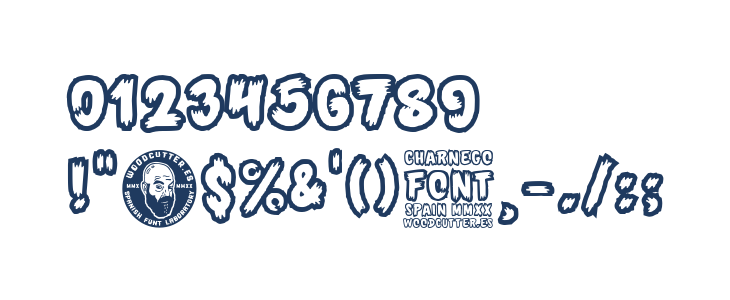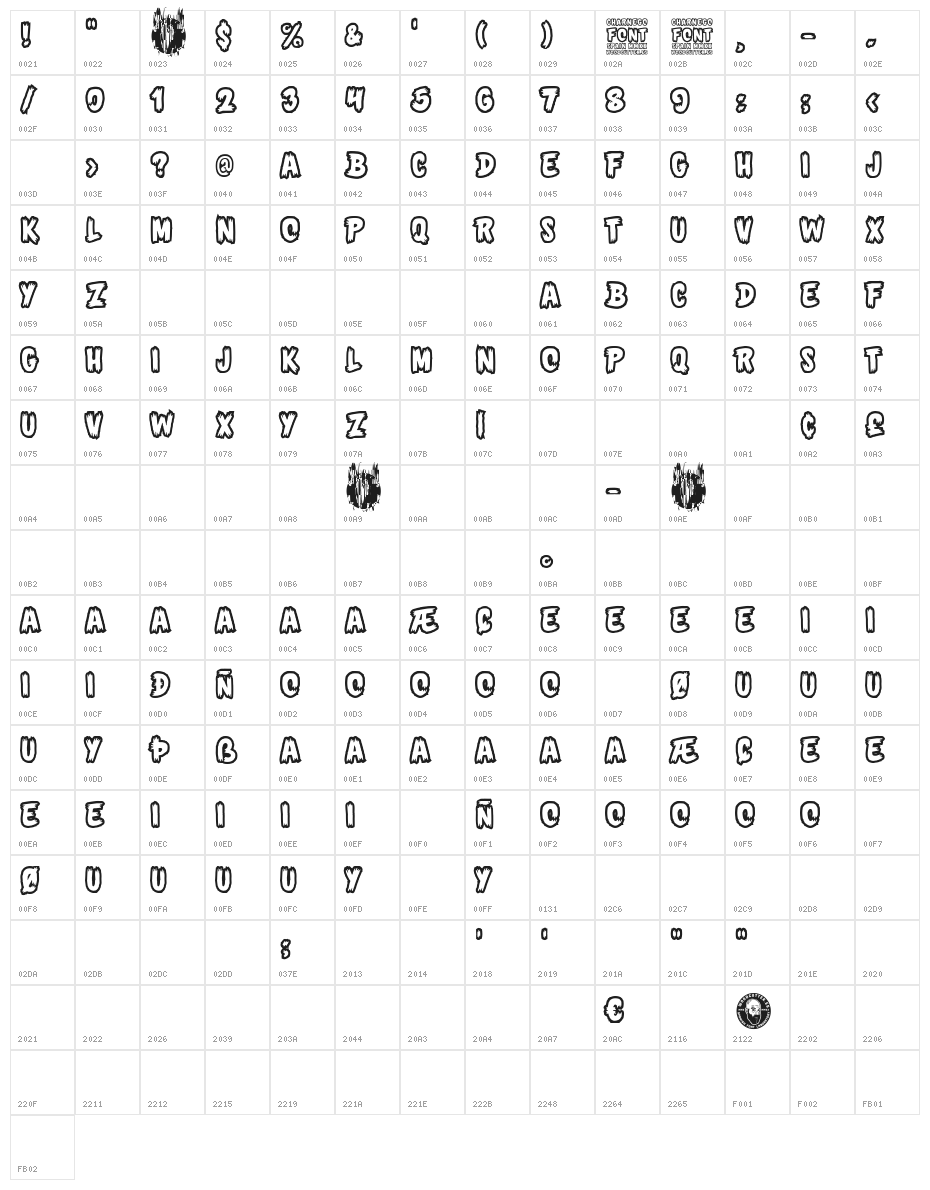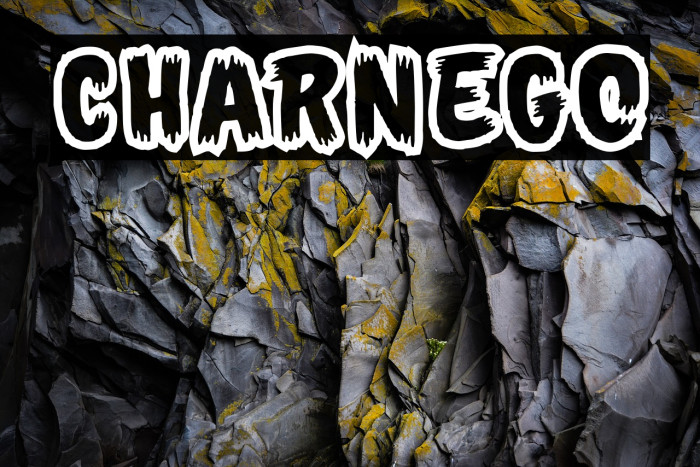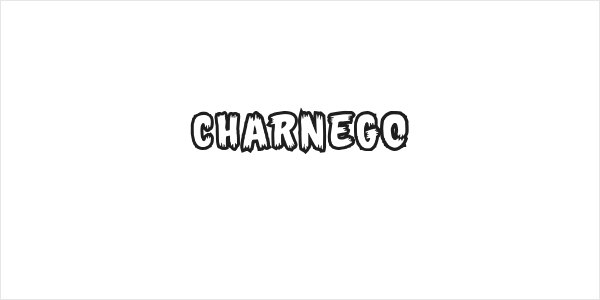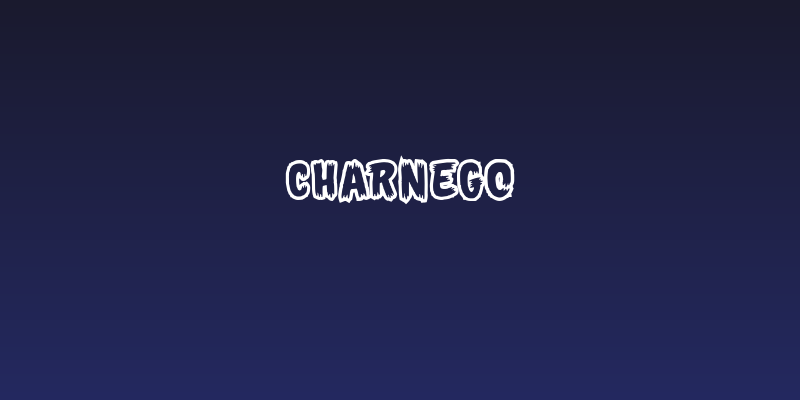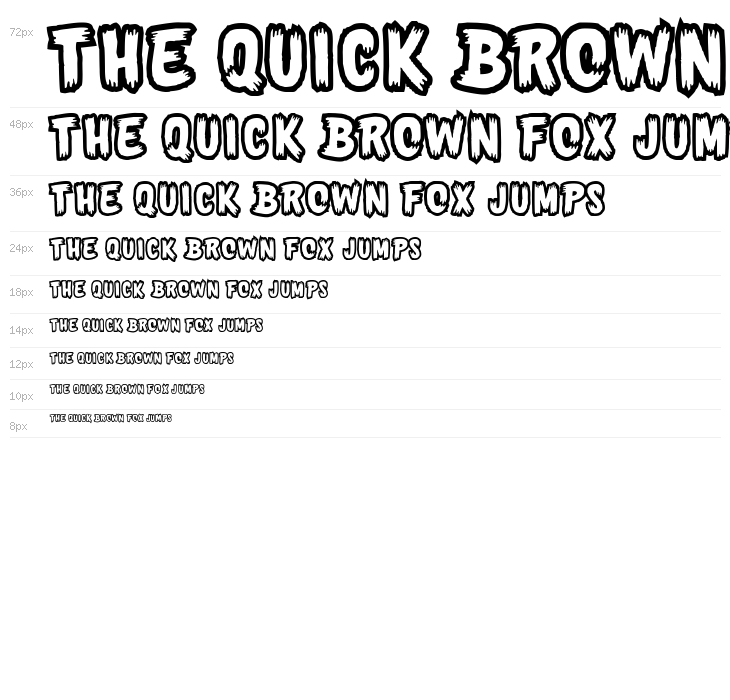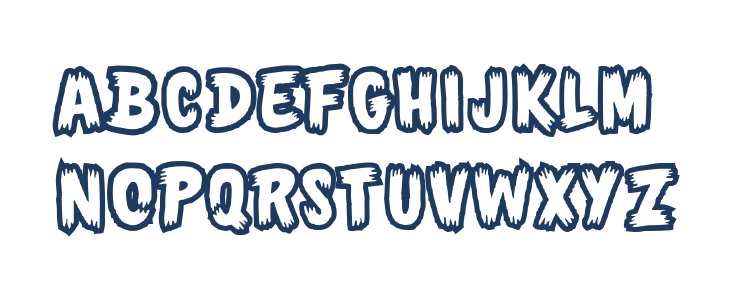
Charnego Font
Charnego Description
This font features a bold, energetic style with a rugged, hand-drawn appearance. The characters are outlined with a thick, uneven stroke, giving them a dynamic and playful look. The irregular edges and bold presence make it stand out, perfect for grabbing attention. It conveys a sense of fun and creativity, suitable for projects that require a lively and informal touch. The font includes uppercase and lowercase letters, numbers, and a variety of special characters, all maintaining the same bold and distinctive style.
| Overall Style | Playful, Energetic, Creative |
| Use Case | Headlines, Posters, Logos |
| Proposed Projects | Ideal for posters, comic books, video game graphics, children's book covers, and any creative project needing a bold and playful touch. |